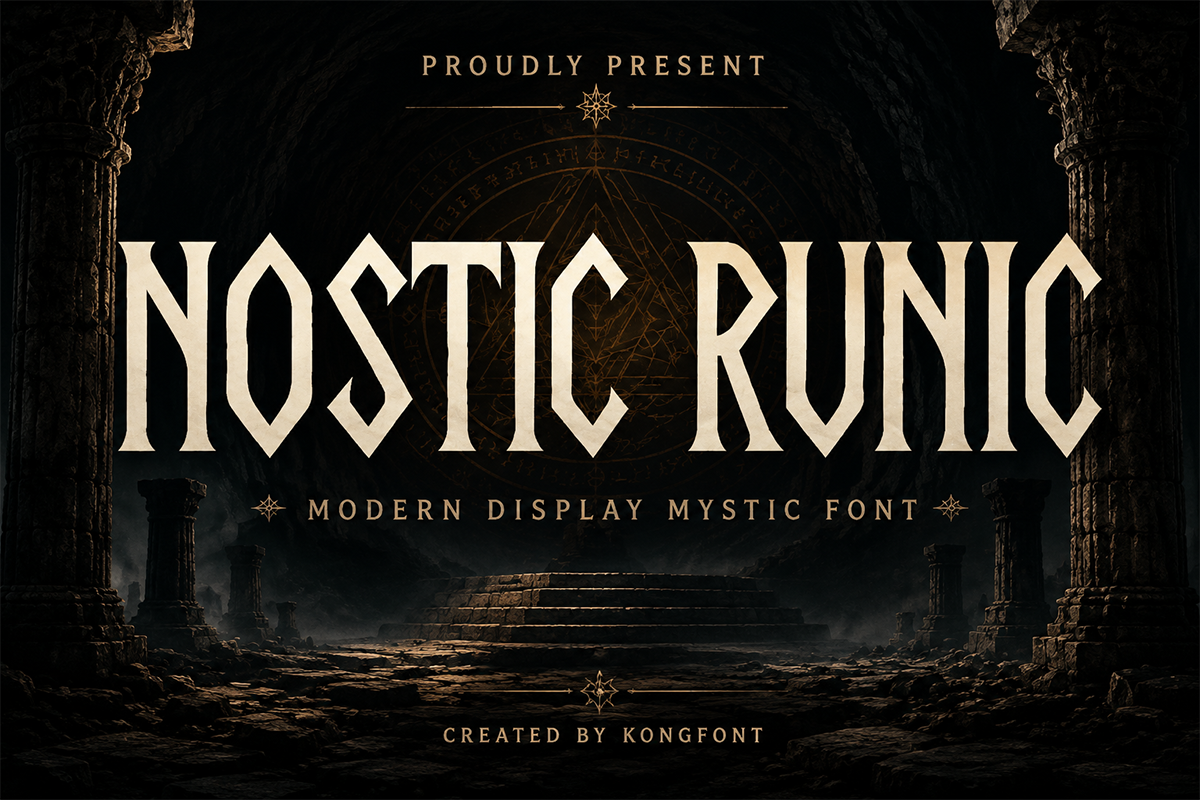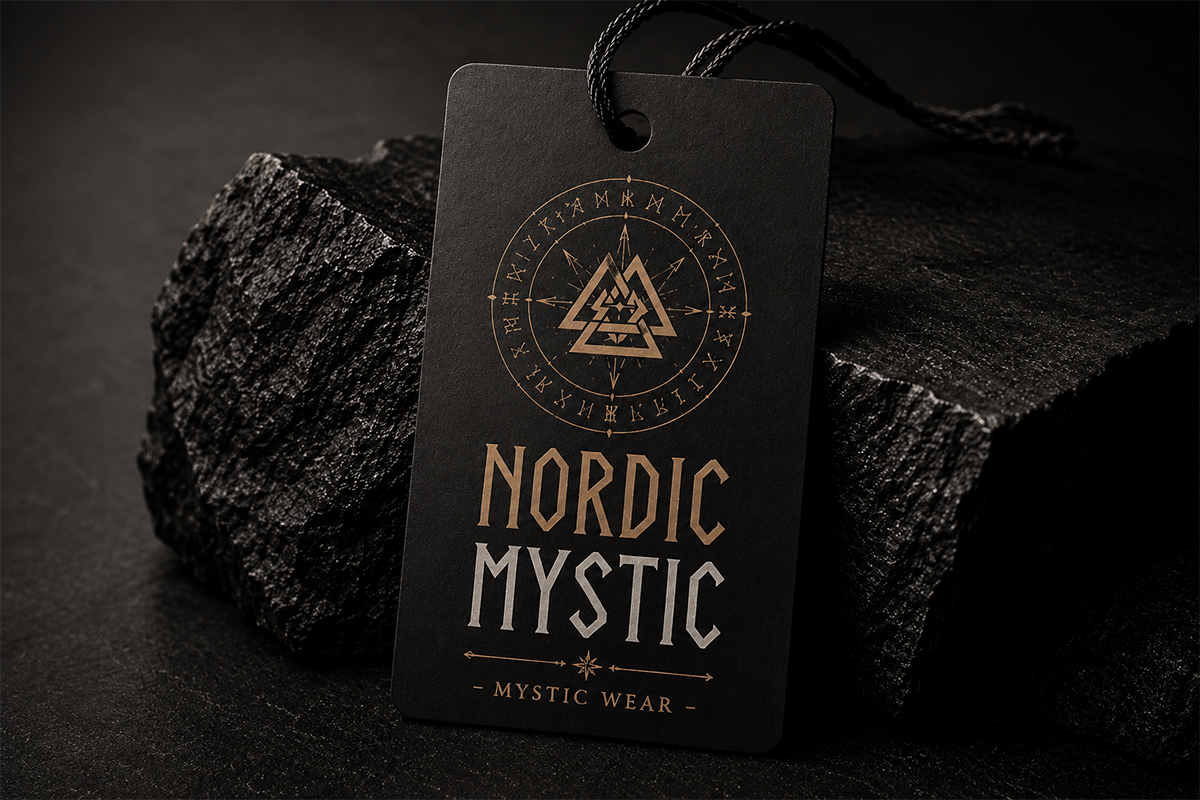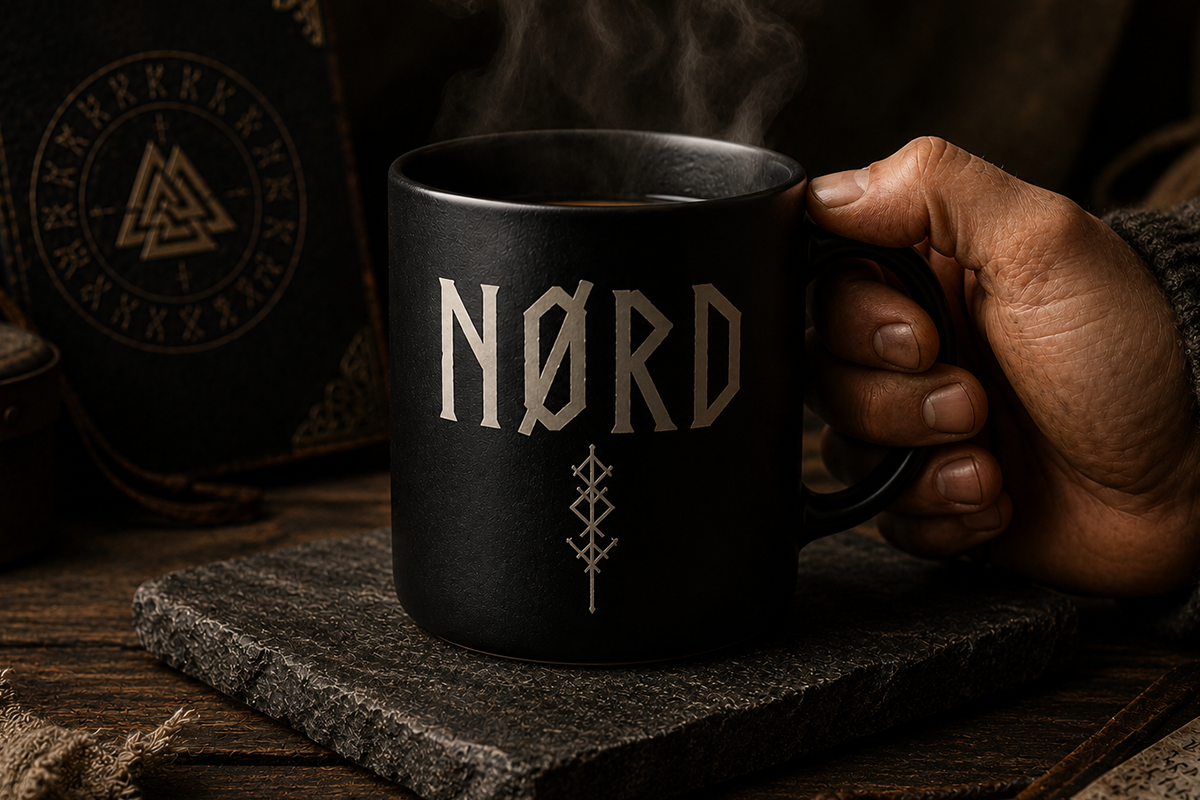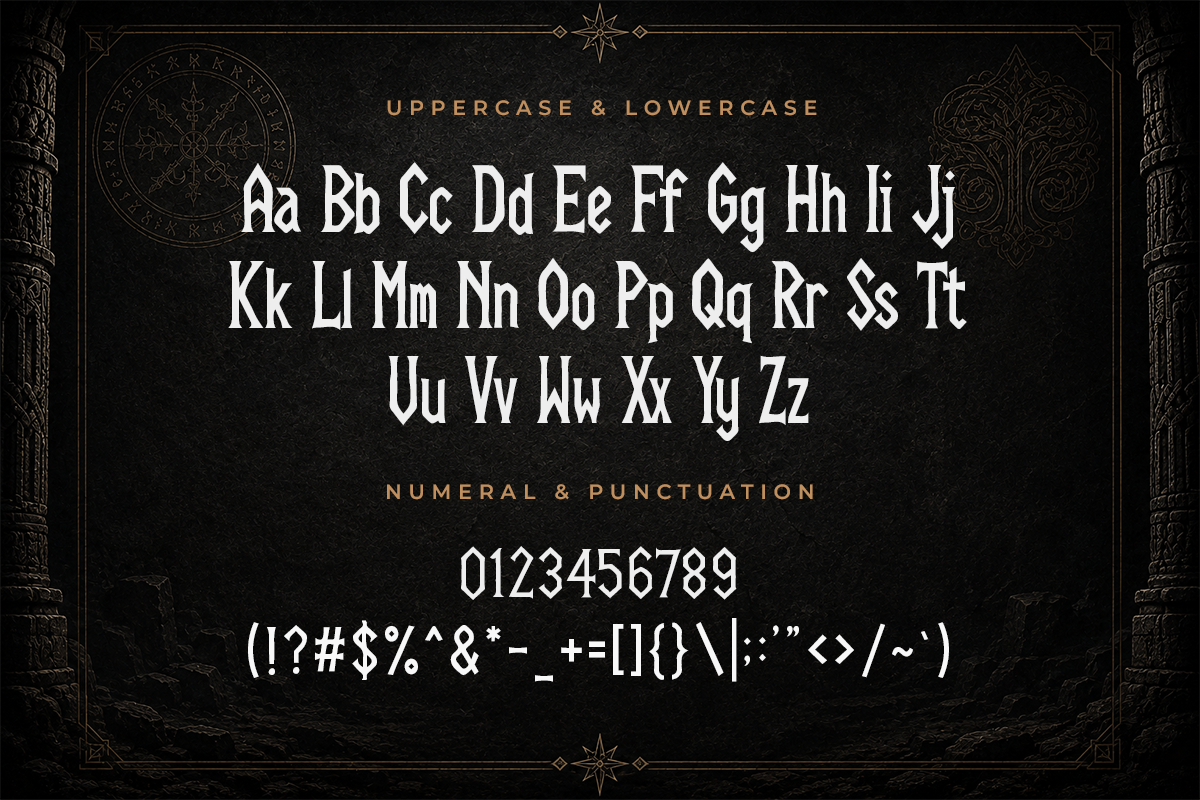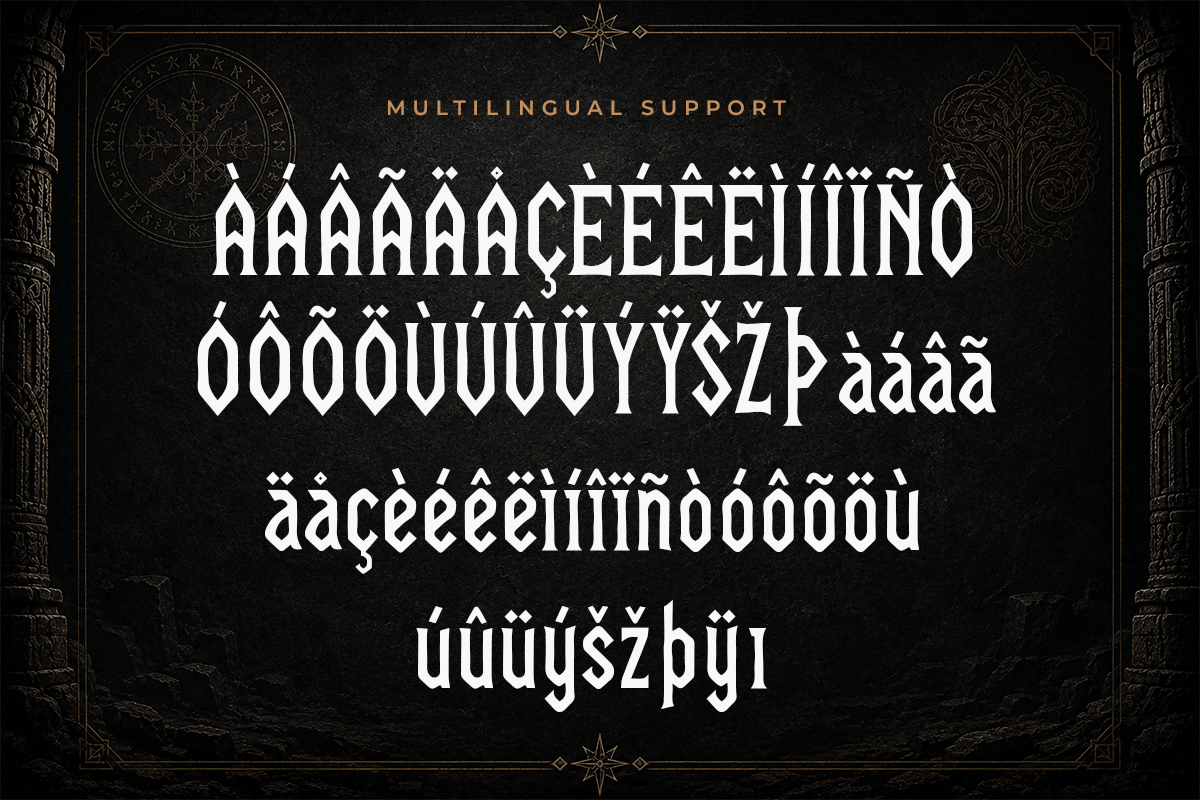
Nostic Runic A Modern Display Mystic Font is a bold mystical display font inspired by ancient runes, forgotten kingdoms, dark temples, and legendary fantasy worlds. Its sharp geometric forms, dramatic angles, and carved-like letter shapes create a powerful visual identity filled with mystery and ancient character.
Designed to feel mystical, commanding, and cinematic, Nostic Runic combines the atmosphere of historical inscriptions with a modern display structure. Each character carries a distinctive silhouette that makes titles and headlines feel like symbols taken from an ancient prophecy.
Nostic Runic is perfect for fantasy branding, game titles, movie posters, book covers, RPG projects, metal and rock artwork, mystical packaging, merchandise, tabletop games, album covers, and dark editorial designs. Our Serif font collection is compatible to be used as; Fonts fonts, Canva fonts, font fonts, and adobe fonts. They also work as Windows font and Apple font. For your social media needs, you can use and install fonts in our Serif font collection to use as Instagram fonts, Facebook fonts, and Twitter fonts.For our customers, we provide a collection of The Best Decorative Fonts, each with its own unique styles and characteristics, so that our customers can create any design they want. We know what our clients love! That is why we prepare everything you may need in one simple downloadable package for you. Our easy-to-grab package contains all of the files you will ever need to create beautiful typography!